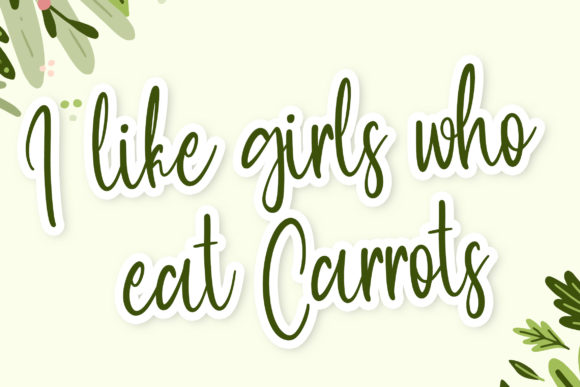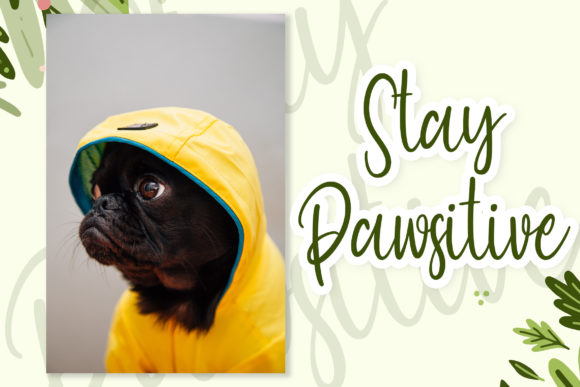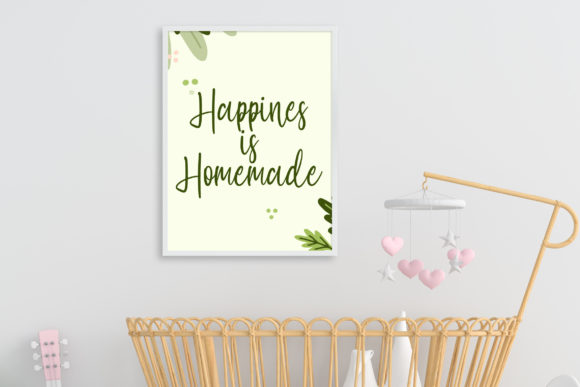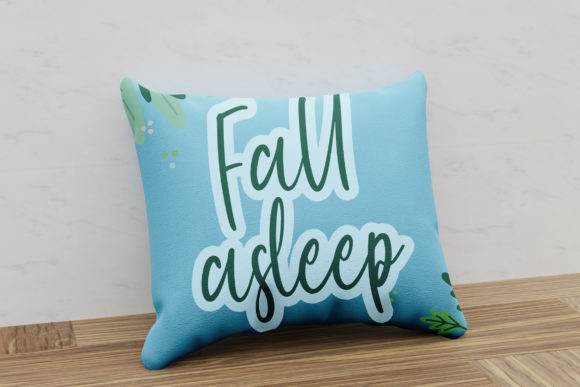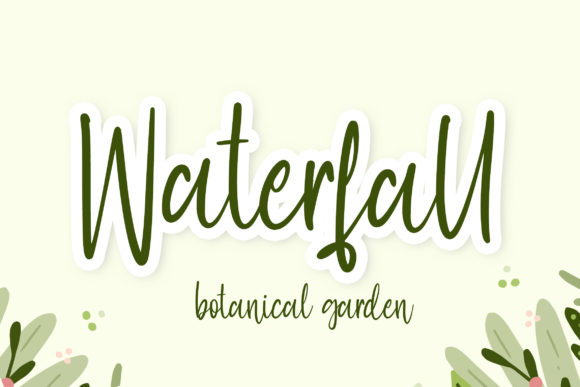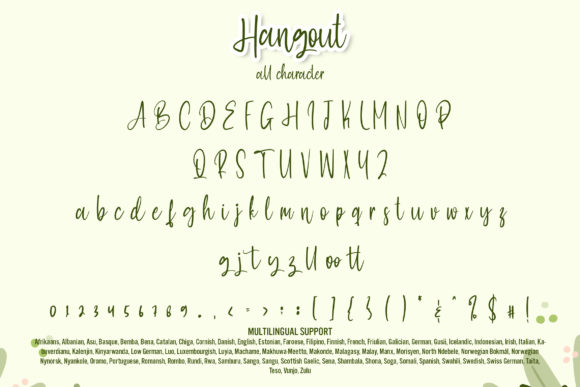
Introducing Hangout Font: The Epitome of Elegance and Versatility
In the realm of typography, few fonts manage to capture the essence of elegance and versatility as effectively as Hangout Font. This delicate and elegant handwritten font has been making waves in the design community, and for good reason. Its distinct and well-rounded letters make it a masterpiece that can elevate any design project to new heights.
The Characteristics of Hangout Font
Hangout Font boasts a unique set of characteristics that set it apart from other fonts in its category. Its letters are meticulously crafted to exude a sense of refinement and sophistication, making it an ideal choice for designers who aim to create visually stunning and impactful designs.
- Delicate and Elegant: Hangout Font’s delicate and elegant nature makes it perfect for designs that require a touch of sophistication and refinement.
- Handwritten: The font’s handwritten style gives it a personal and organic feel, making it suitable for a wide range of design applications, from wedding invitations to branding and packaging.
- Distinct and Well-Rounded Letters: The font’s letters are distinct and well-rounded, making it easy to read and understand, even at smaller font sizes.
- Versatile: Hangout Font’s versatility is one of its most significant advantages. It can be used in various design contexts, from digital designs to print materials, and still look stunning.
Uses of Hangout Font
Hangout Font’s versatility makes it an excellent choice for a wide range of design projects. Here are some of the many uses of this incredible font:
- Wedding Invitations and Stationery: Hangout Font’s elegant and refined nature makes it perfect for wedding invitations, stationery, and other paper goods.
- Branding and Packaging: The font’s unique and eye-catching style makes it an excellent choice for branding and packaging designs that require a touch of sophistication.
- Digital Designs: Hangout Font can be used in digital designs, such as website headers, social media graphics, and email marketing campaigns, to add a touch of elegance and refinement.
- Signage and Displays: The font’s clear and legible style makes it suitable for signage and display designs, such as store signs, billboards, and exhibition displays.
Tips for Using Hangout Font Effectively
To get the most out of Hangout Font, here are some tips to keep in mind:
- Pair it with Other Fonts: Hangout Font can be paired with other fonts to create a unique and visually appealing typography combination.
- Experiment with Font Sizes: The font’s versatility allows it to be used at various font sizes, from small to large, without losing its elegance and refinement.
- Use it in Combination with Images: Hangout Font can be used in combination with images to create stunning and impactful designs that capture the viewer’s attention.
- Keep it Simple: Don’t overcomplicate your design. Hangout Font’s elegance and refinement can shine through when used in simple and clean designs.
In conclusion, Hangout Font is a delicate and elegant handwritten font that offers a unique combination of sophistication, versatility, and refinement. Its distinct and well-rounded letters make it a masterpiece that can elevate any design project to new heights. With its wide range of uses and applications, Hangout Font is an excellent addition to any designer’s toolkit. So, fall in love with its incredibly versatile style and use it to create spectacular designs that leave a lasting impression!